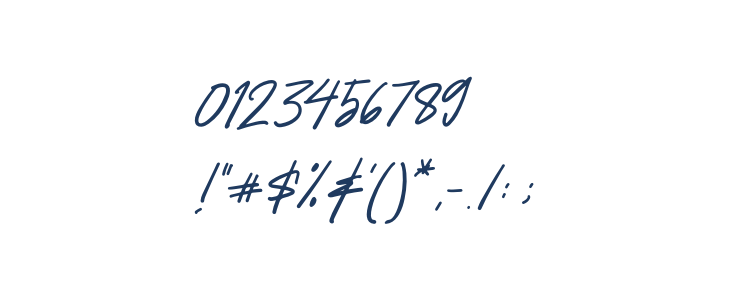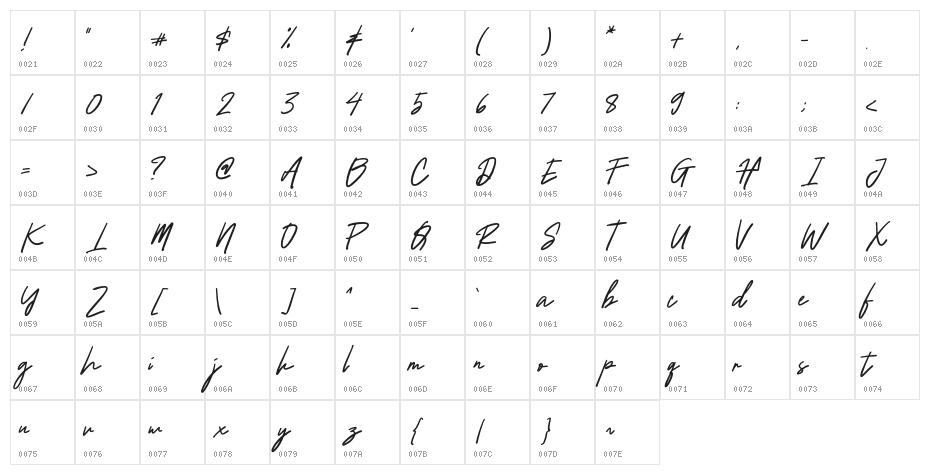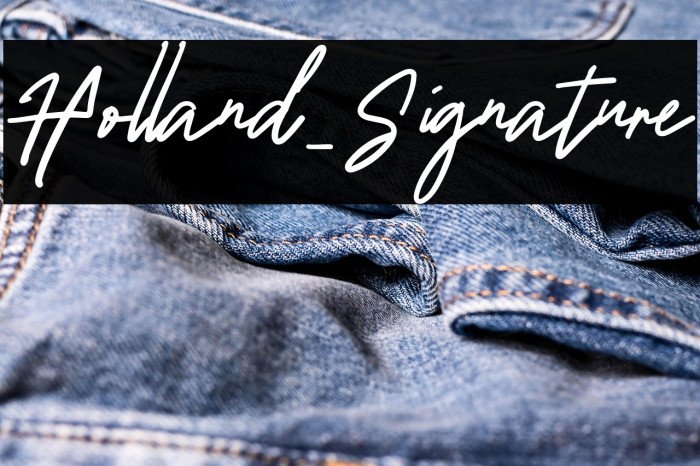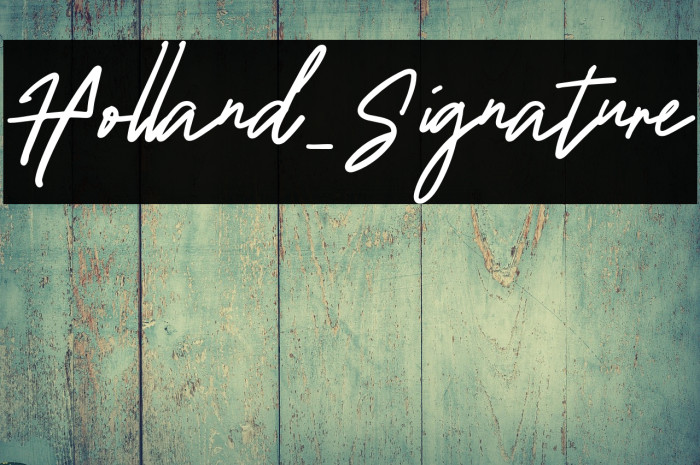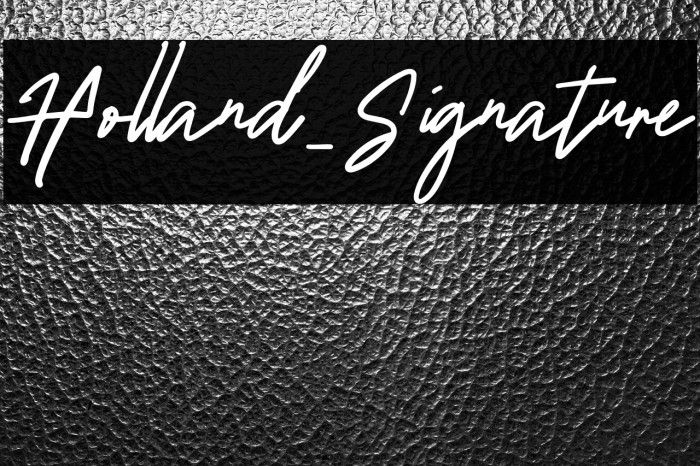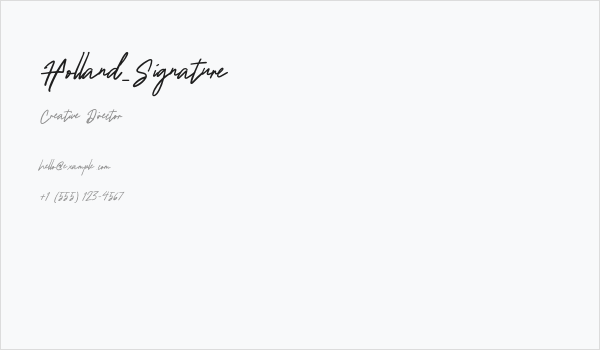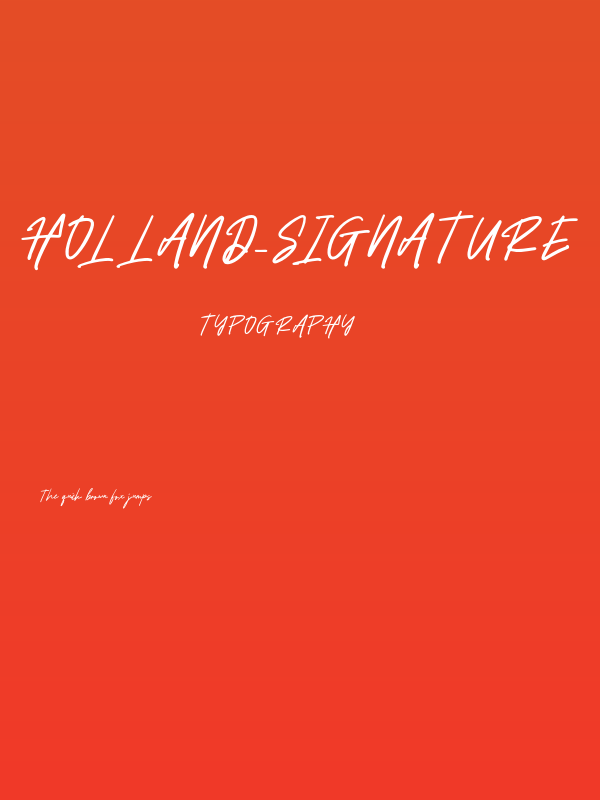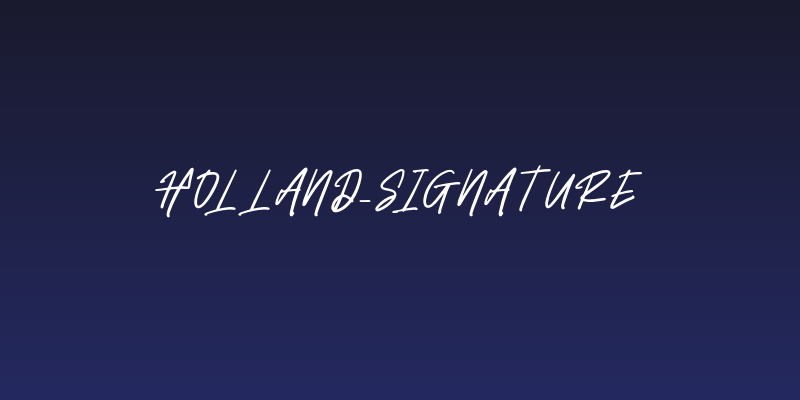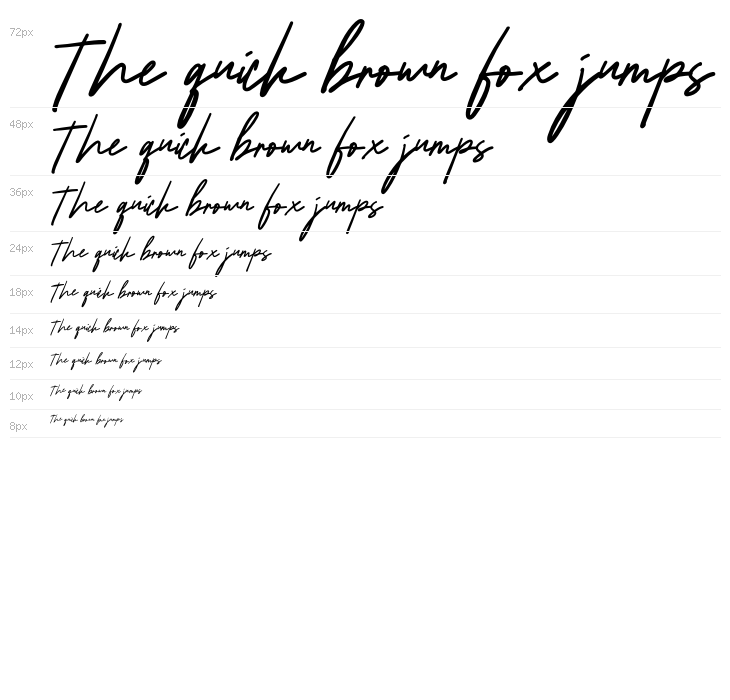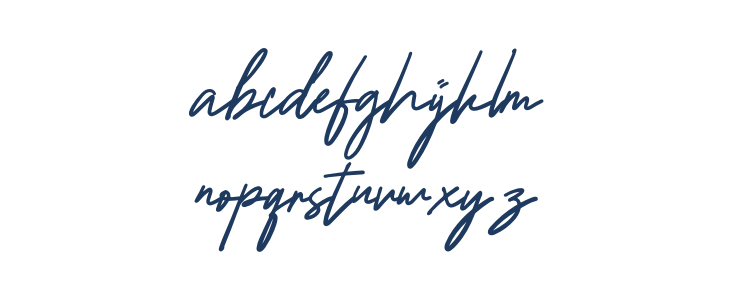
Holland_Signature Font
Holland_Signature Description
A fluid, cursive script font with a handwritten appearance, featuring natural letter connections and varying stroke thickness for a dynamic, personal feel.
| Overall Style | Decorative, Modern, Casual |
| Use Case | Signatures, Logos, Invitations, Personal branding |
| Proposed Projects | Personal branding, signatures, invitations, greeting cards, logos, social media graphics. |